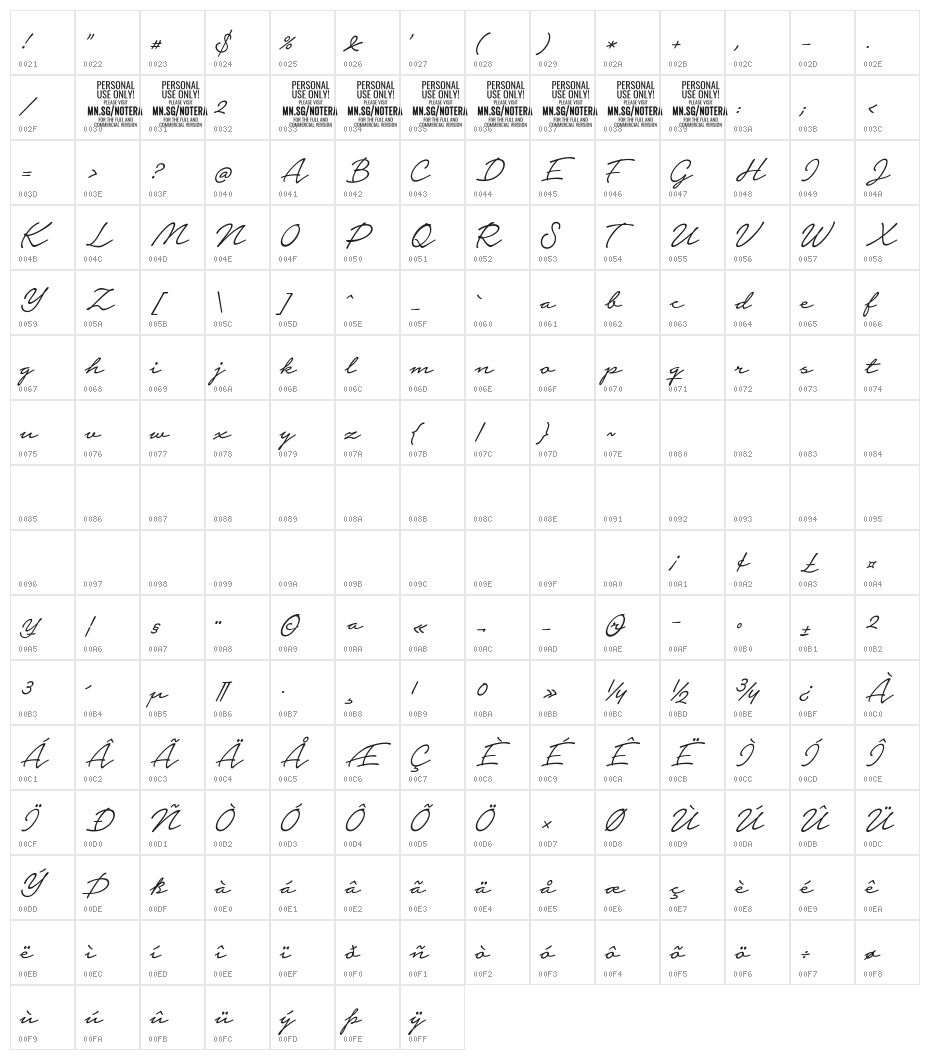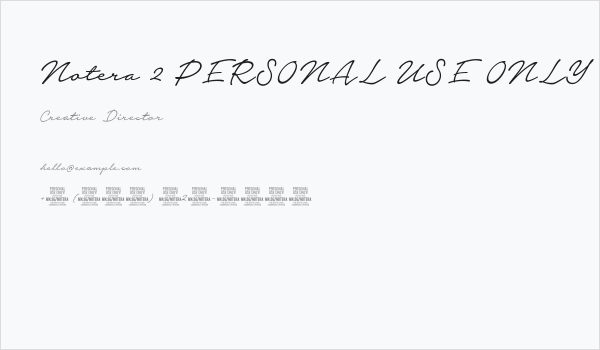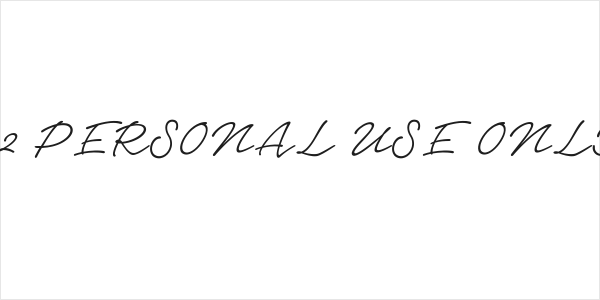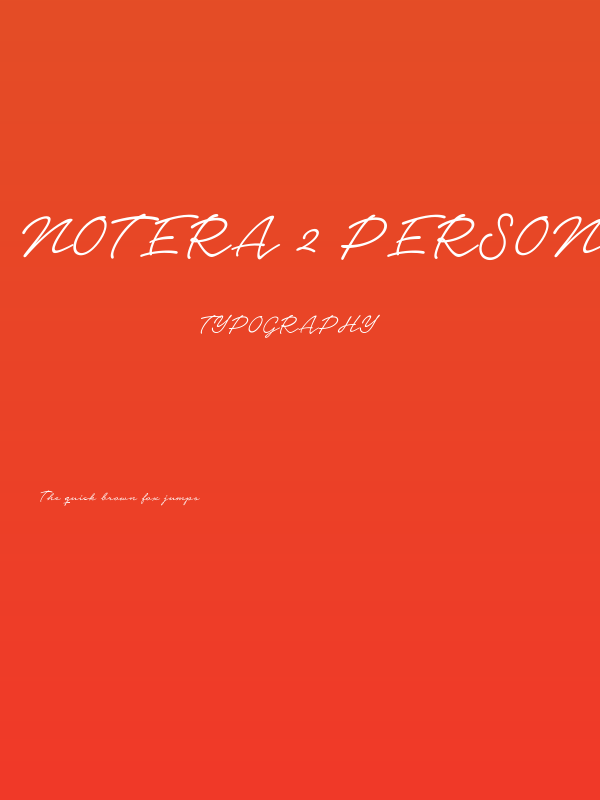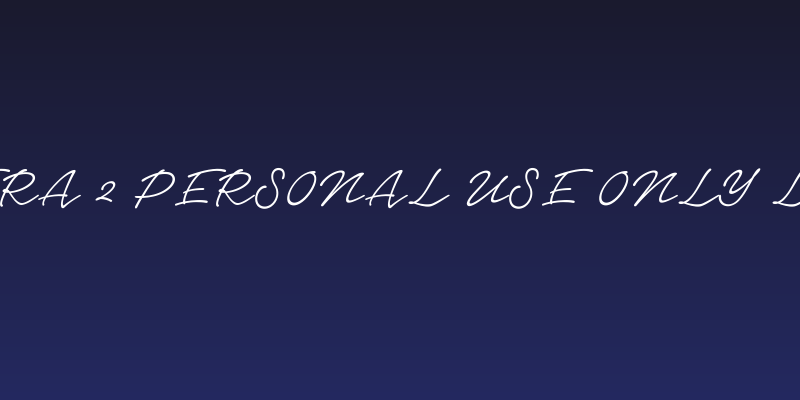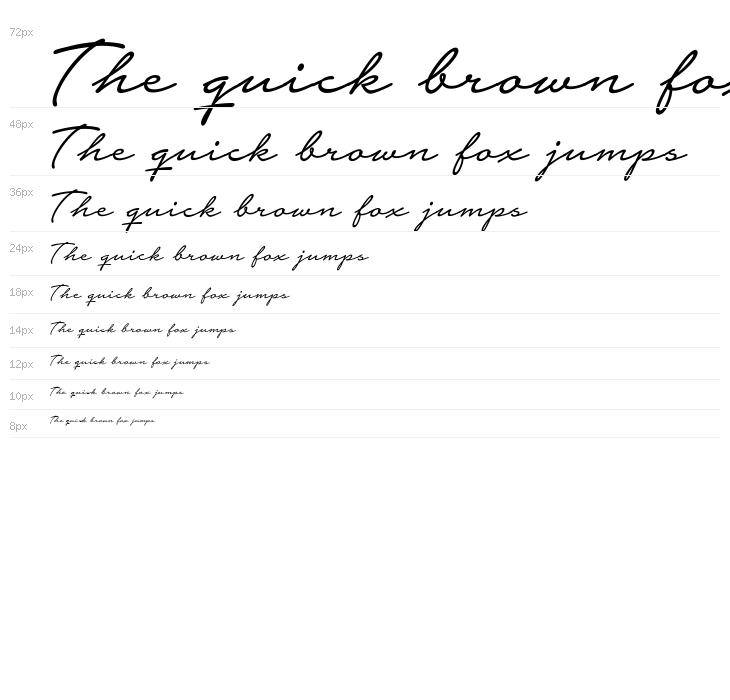
Notera 2 PERSONAL USE ONLY Light Font
Notera 2 PERSONAL USE ONLY Light Description
This font exudes a classic and elegant handwritten style, characterized by its fluid and connected letterforms. The uppercase letters maintain a consistent height, while the lowercase letters exhibit a slight slant, enhancing the script-like appearance. The strokes are smooth and continuous, giving the font a natural flow that mimics cursive handwriting. The special characters are seamlessly integrated, maintaining the overall aesthetic. This font is ideal for projects that require a personal touch, such as invitations, greeting cards, or branding materials that aim to convey sophistication and warmth.
| Proposed Projects | Ideal for wedding invitations, personal branding, greeting cards, and elegant stationery. |